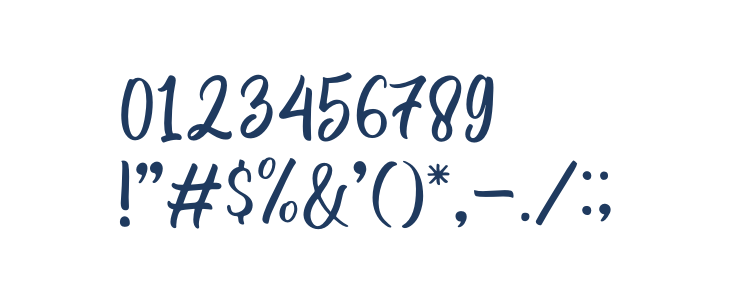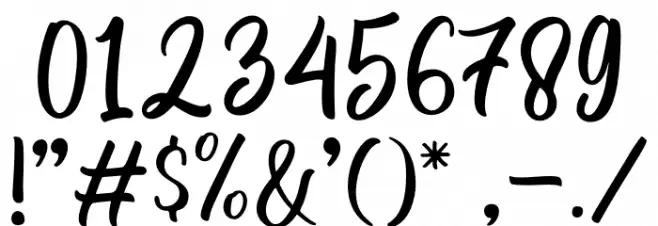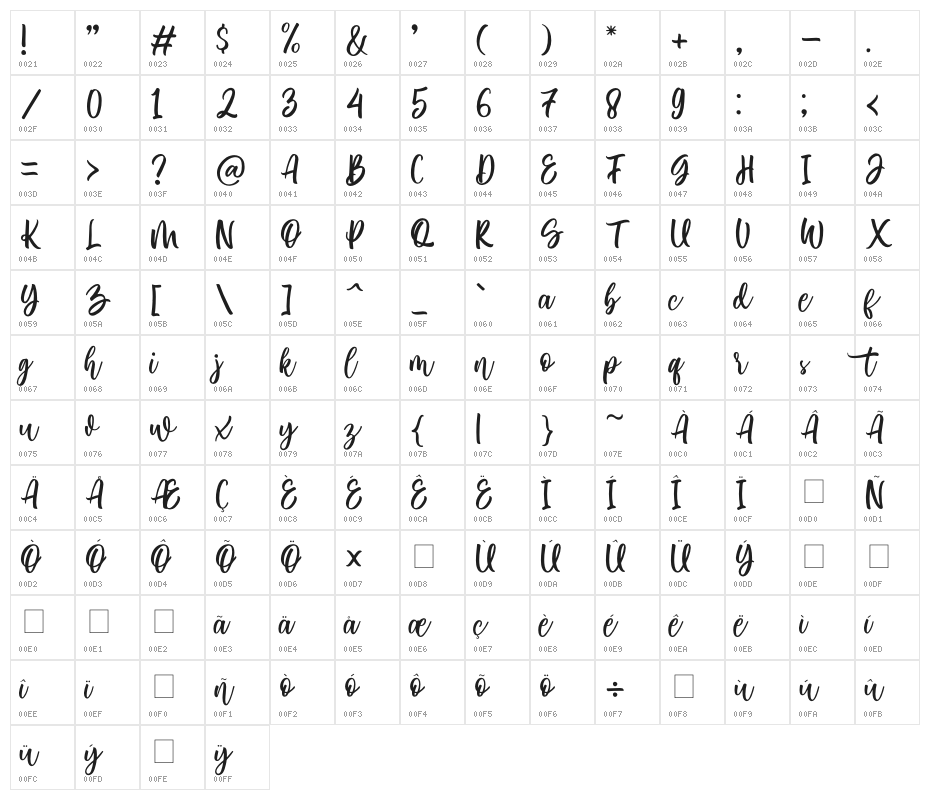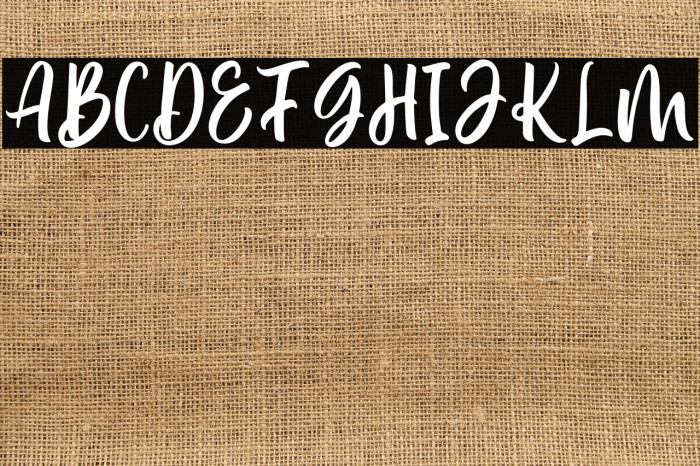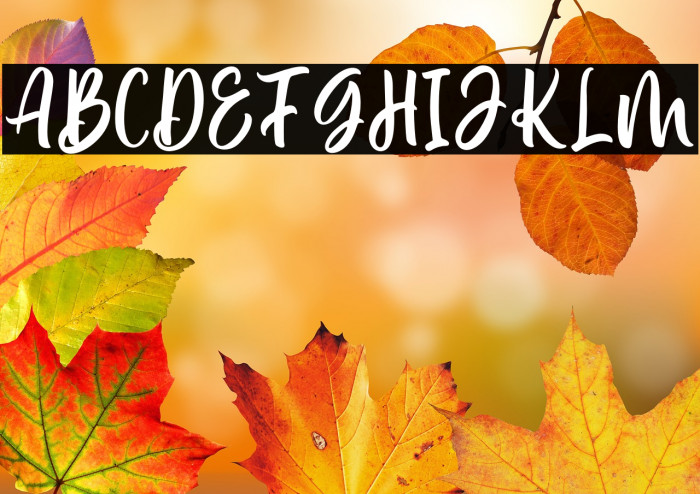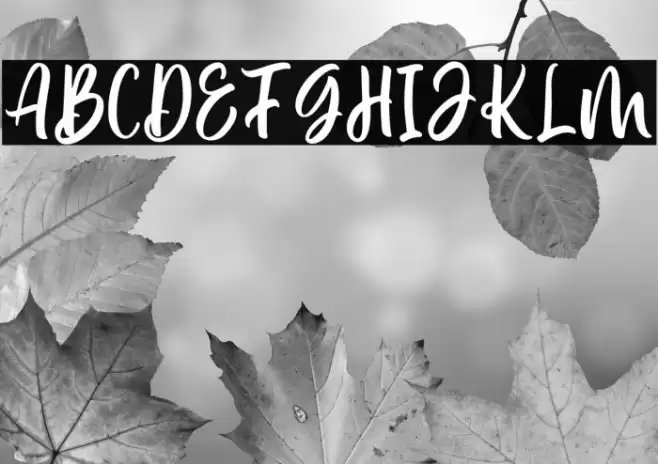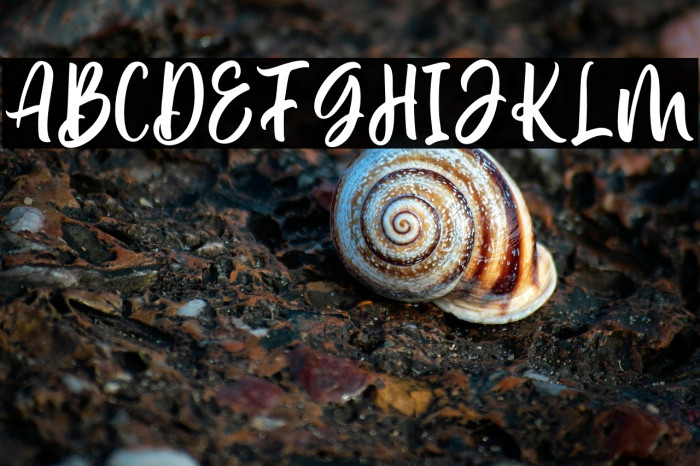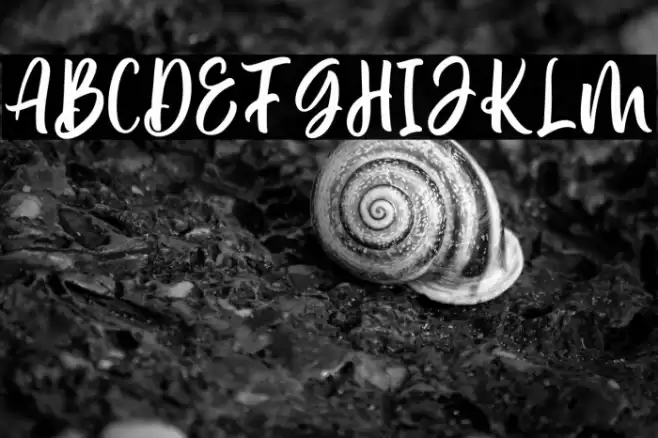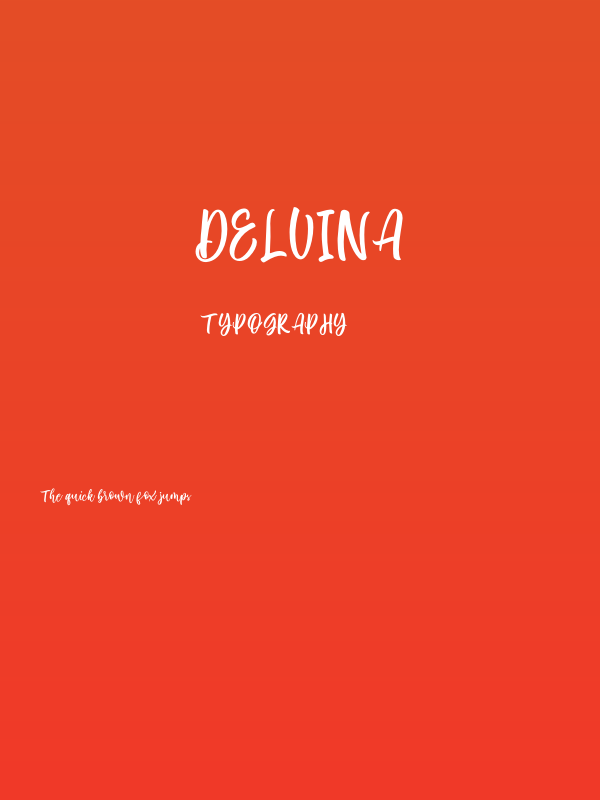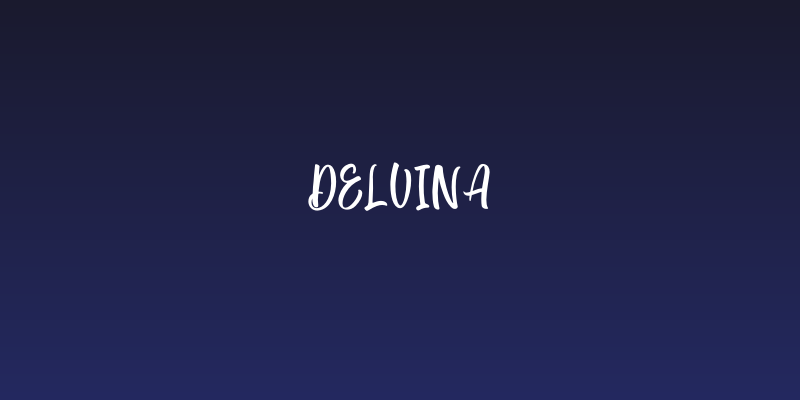
Delvina Font
Delvina Description
This font exhibits a lively and expressive handwritten style, characterized by its fluid and connected letterforms. The uppercase and lowercase letters flow seamlessly, creating a sense of movement and elegance. The strokes are bold and confident, with a consistent thickness that adds to the font's readability. The numerals and special characters maintain the same energetic style, making them cohesive with the alphabet. This font's playful yet sophisticated appearance makes it suitable for a variety of creative projects.